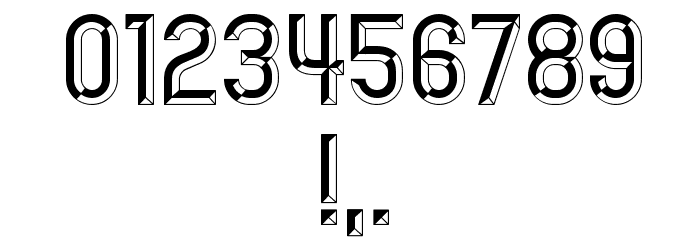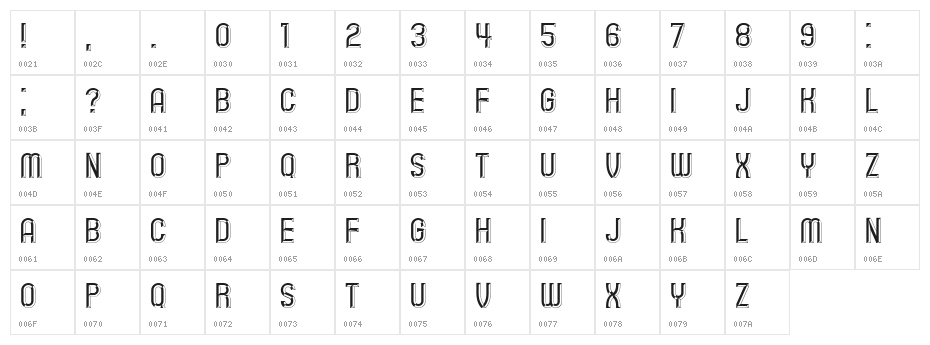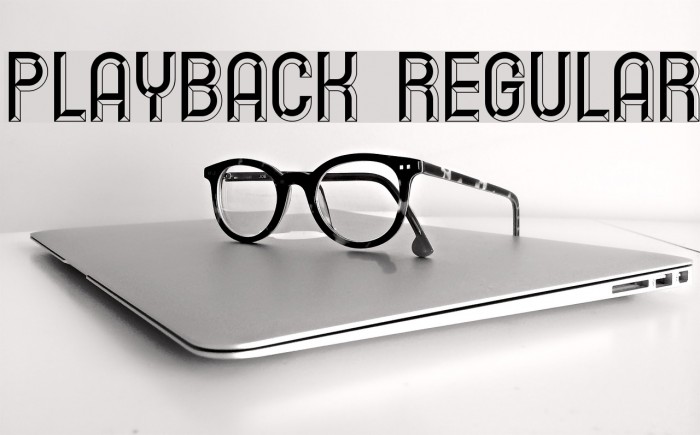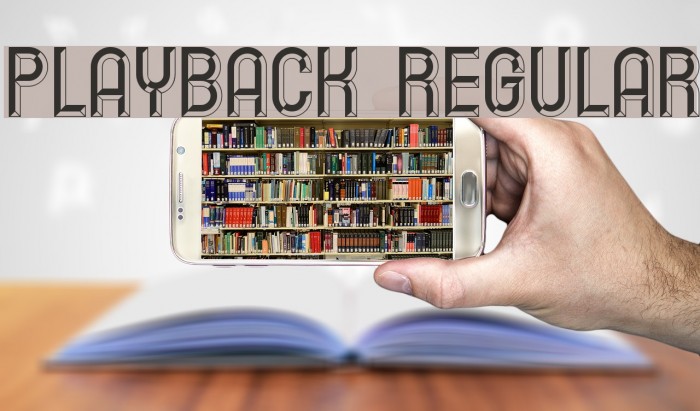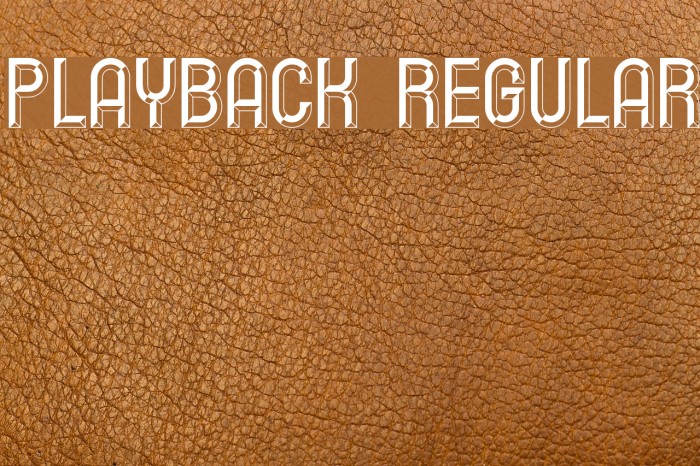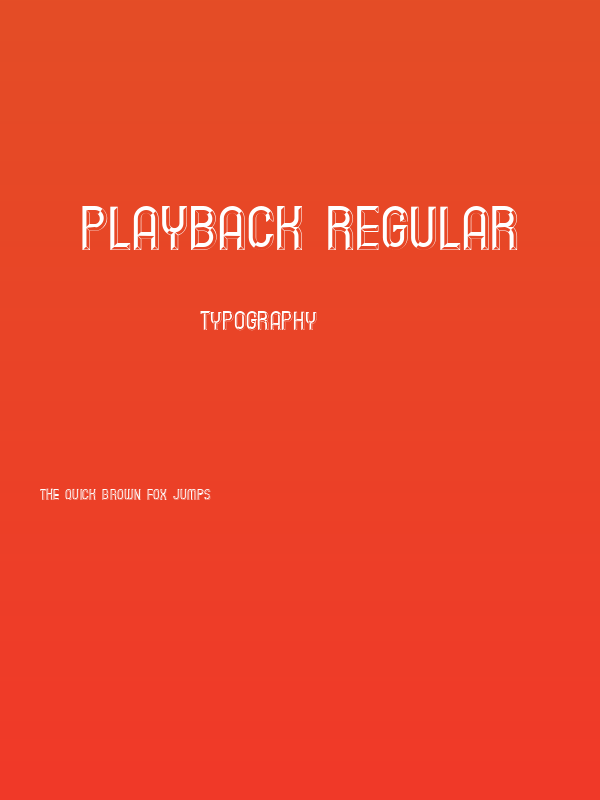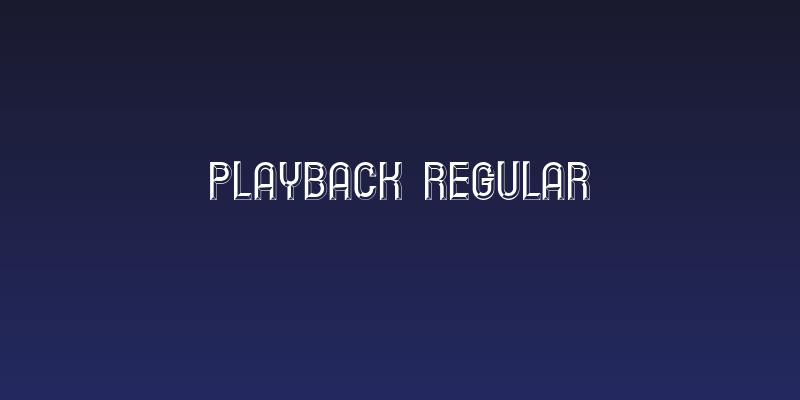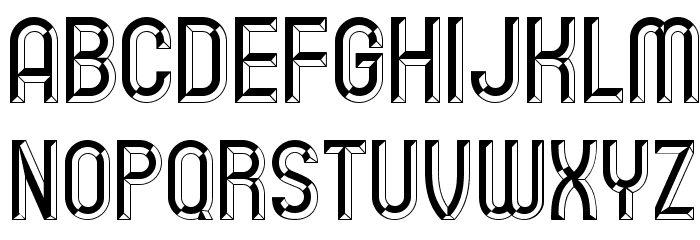
Playback Regular Font
Playback Regular Description
This font features a bold and decorative style with a three-dimensional effect, achieved through the use of shadowing and outlines. The characters are uppercase and numerals, each with a distinct geometric design that adds depth and visual interest. The font's structure is clean and modern, with a playful twist due to its unique shadowing technique. The overall appearance is striking, making it suitable for attention-grabbing headlines or creative projects that require a bold statement.
| Proposed Projects | Ideal for posters, logos, branding, and any design project that requires a bold and eye-catching typeface. |